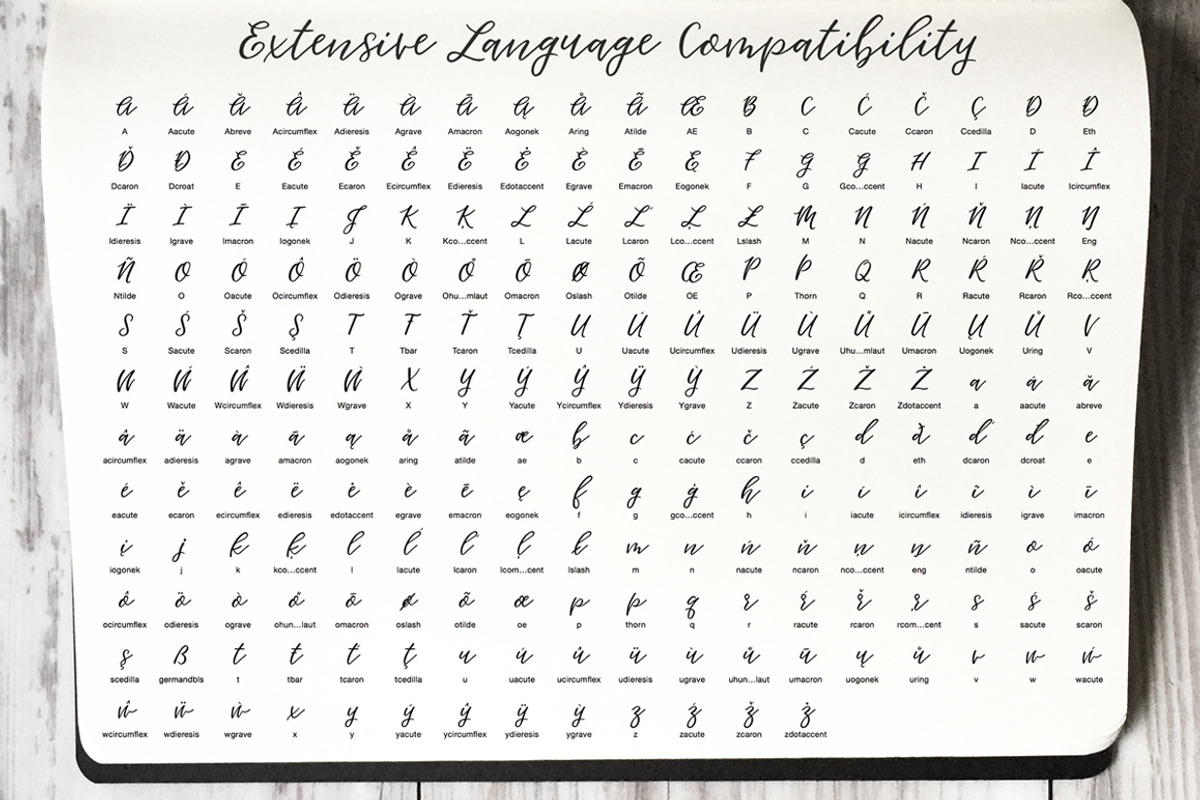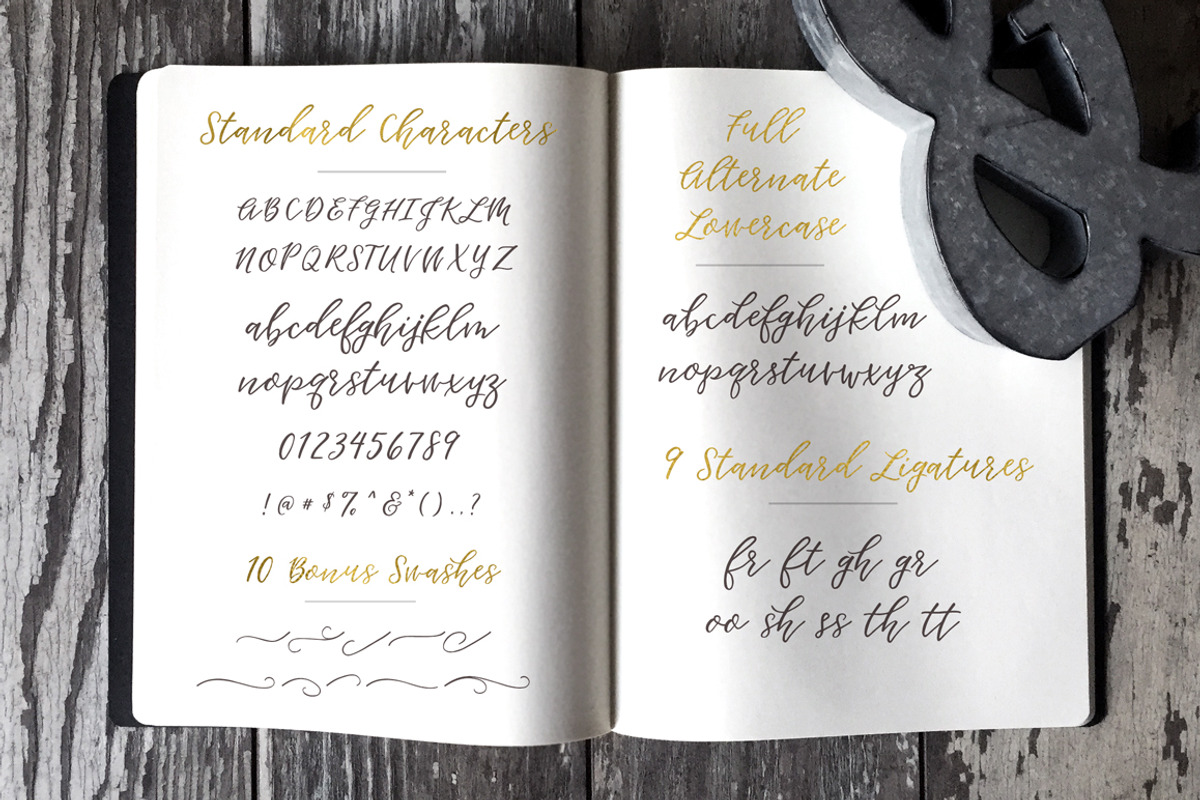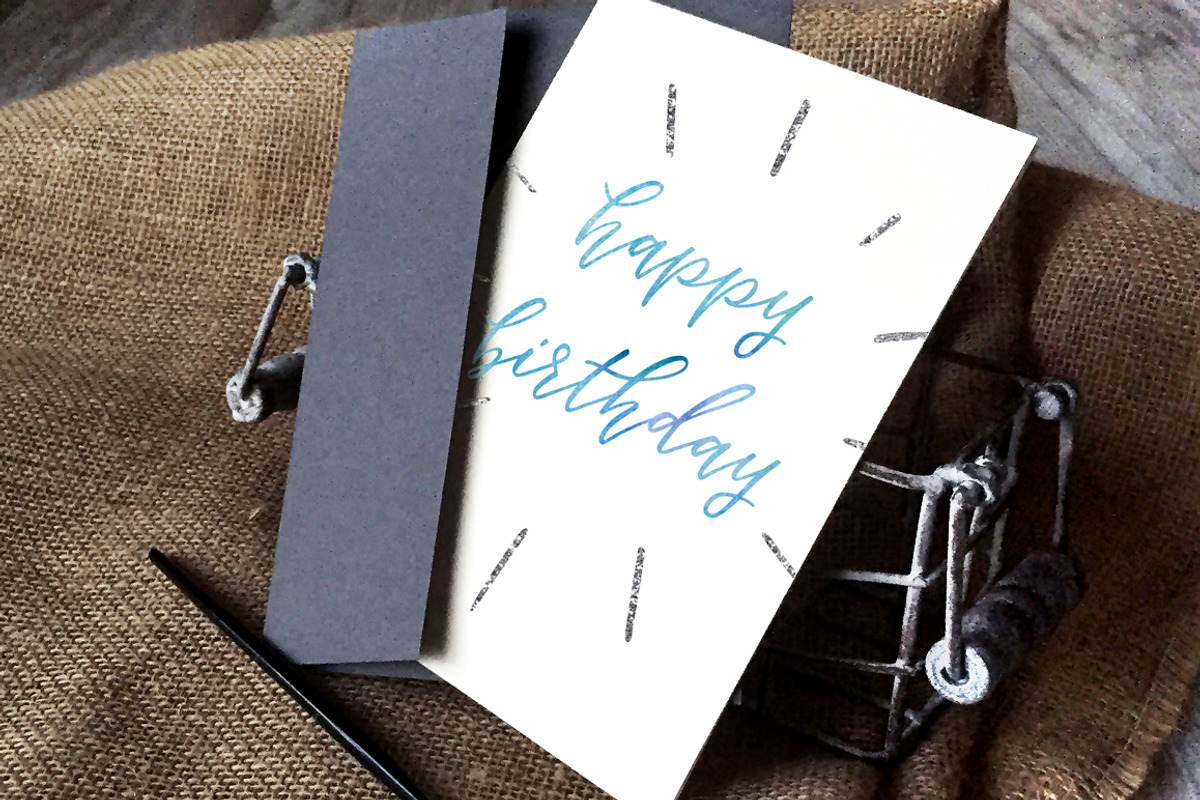
Hawthorne Script
Introducing Hawthorne Script: A hand lettered, sophisticated script with a little bounce.
Hawthorne Script comes packed with:
- a full alternate lowercase to make any word more original
- 9 standard ligatures
- 10 bonus swashes (5 left side, 5 right side)
- Super extensive language compatibility which includes the following: English, German, Dutch, Italian, French, Portuguese, Spanish, Turkish, Polish, Hungarian, Croatian, Czech, Slovak, Slovenian, Bosnian, Albanian, Estonian, Catalan, Danish, Faroese, Finnish, Icelandic and Norwegian. Please use the font previewer to check for any characters you may be unsure of.
Alter the look of any lowercase character by highlighting it and changing it to Hawthorne Script Alternates for more varied looks!